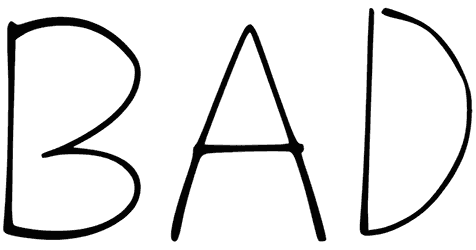
Bad Font
Designed byMiyawaki Yuki
If you are looking for a funny, childish display, you should take a look at Bad font. This is a handwritten font with a caps style and some punctuation marks. It doesn’t include lowercase letters and numbers.
It has a kindergarten vibe to your work because of its playful and handwritten mood; it’s ideal for headings of children’s books, cartoons, and other kid-friendly materials. The simplicity of the font makes your text more readable for people with limited literacy.